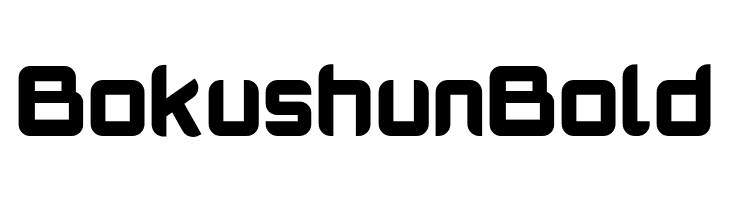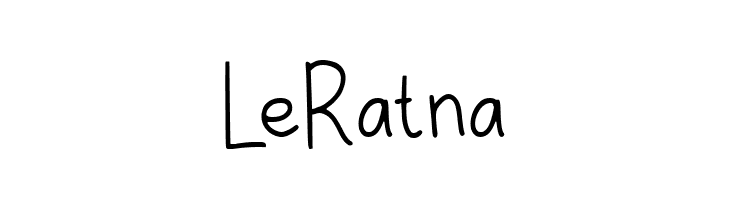
A bold, distressed font with a rugged, industrial style.
A graceful and flowing script font with elegant, connected letterforms.
A bold, handwritten font with a playful and energetic style.
A modern, geometric sans-serif font with a clean and minimalist style.
A dynamic, handwritten-style font with fluid, expressive characters.
A playful, handwritten font with irregular strokes and a casual style.
A playful, rounded font with bold, uniform strokes and smooth curves.
A modern, dotted font with a geometric and digital style.
A bold serif font with strong vertical lines and pronounced serifs.
An elegant and flowing script font with graceful curves and loops.
设计师偏爱 FragileBombersAttack-Regular, Ganella, folewer, Santario and Haltmoon,因为其造型干净、适用范围广—— 从品牌识别到落地页、海报都能胜任。